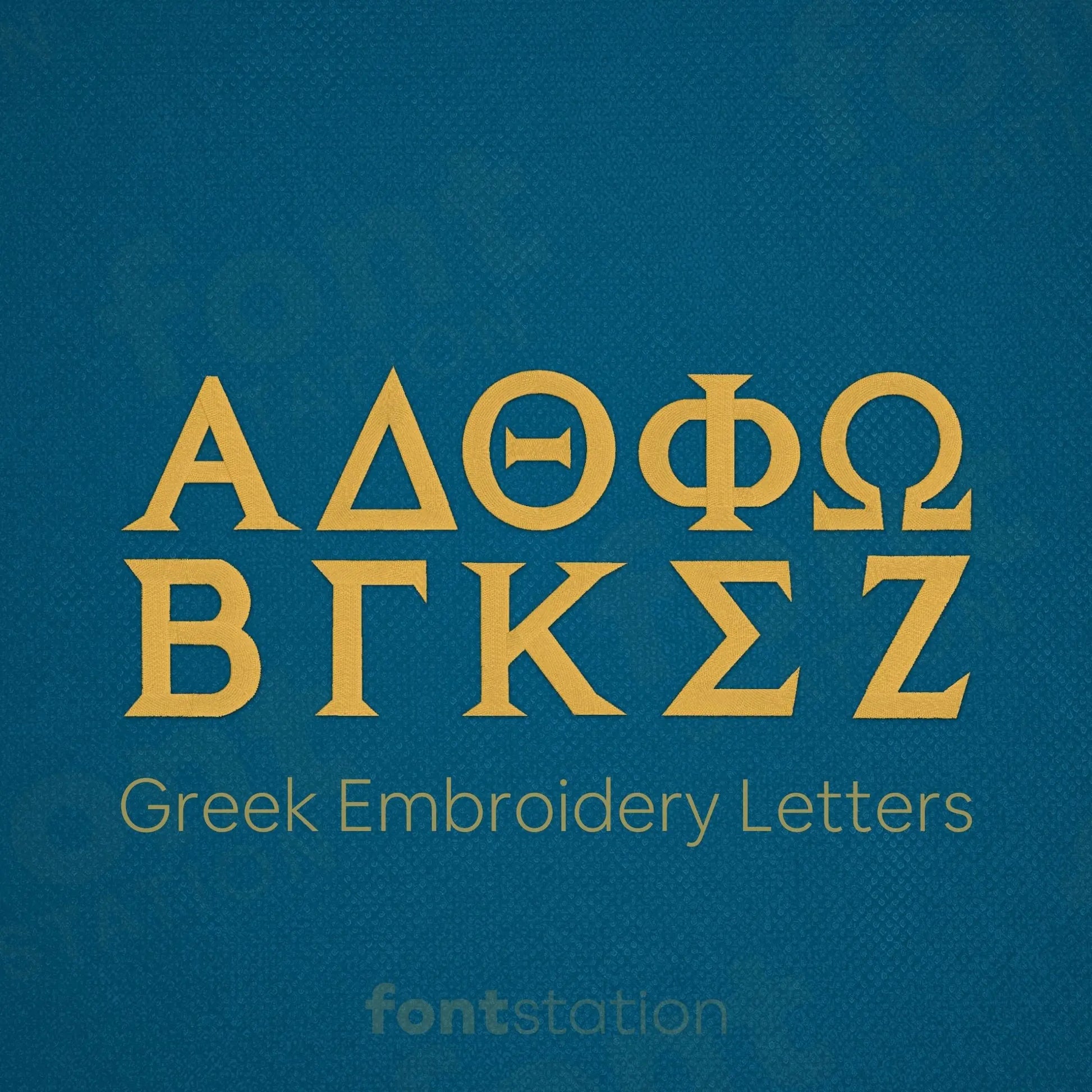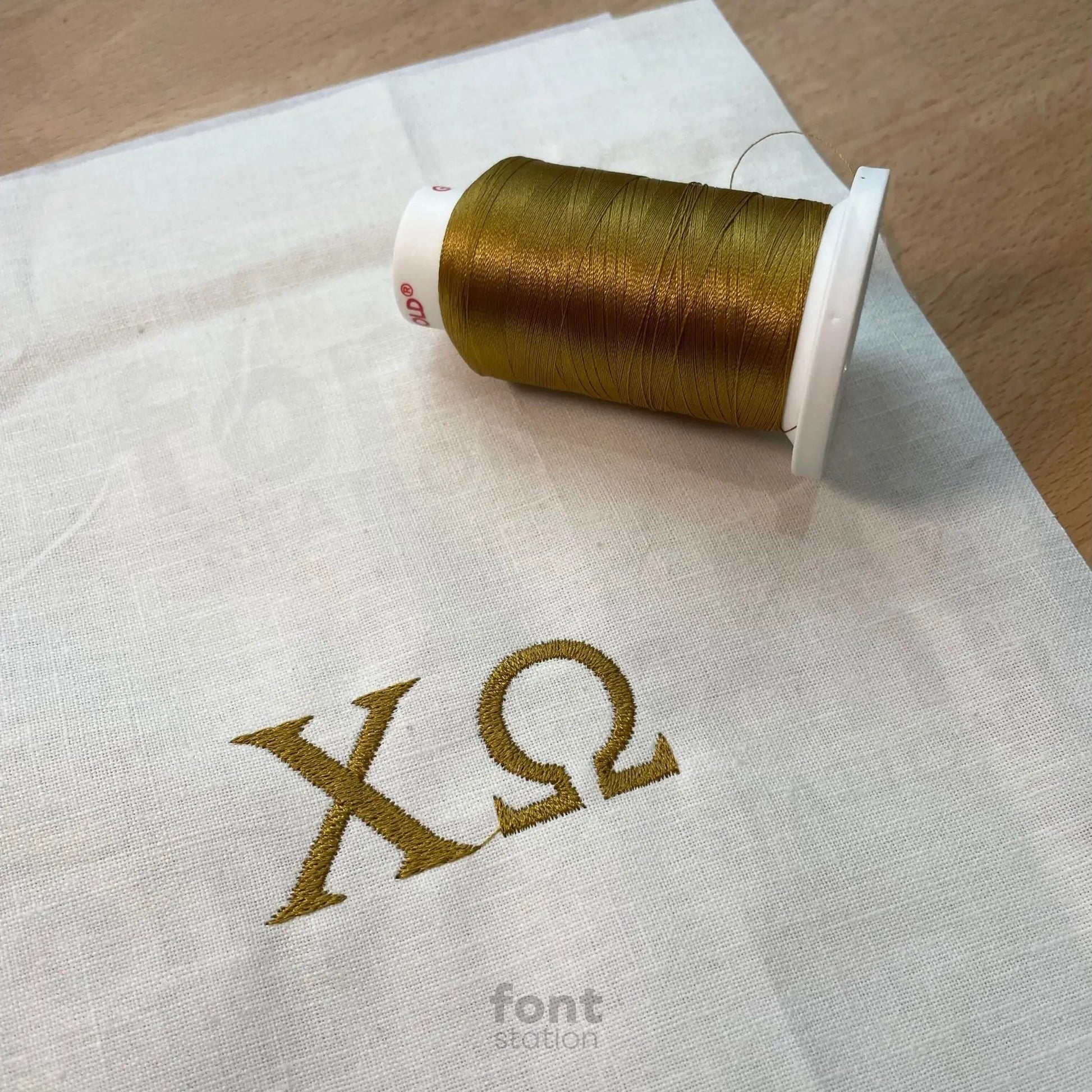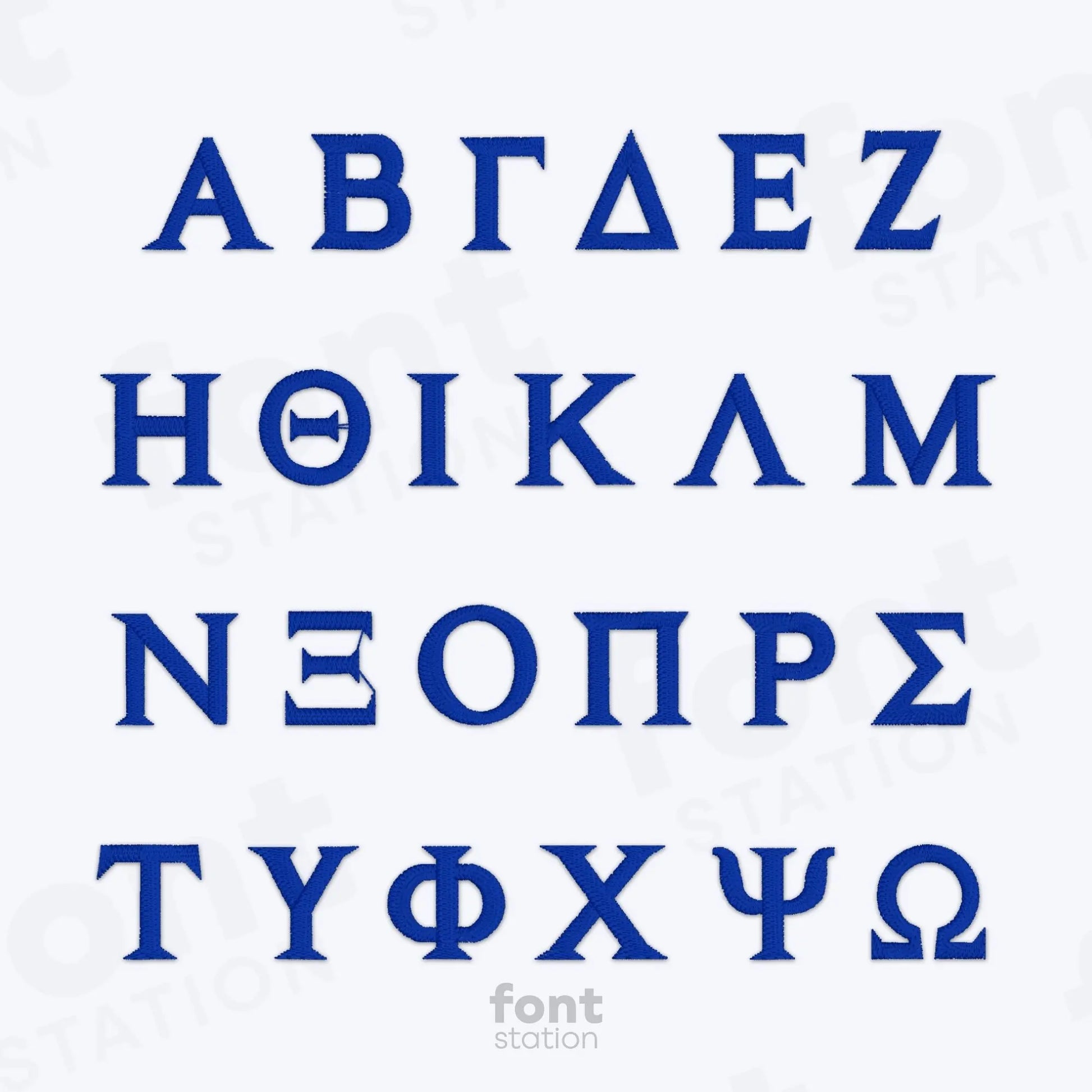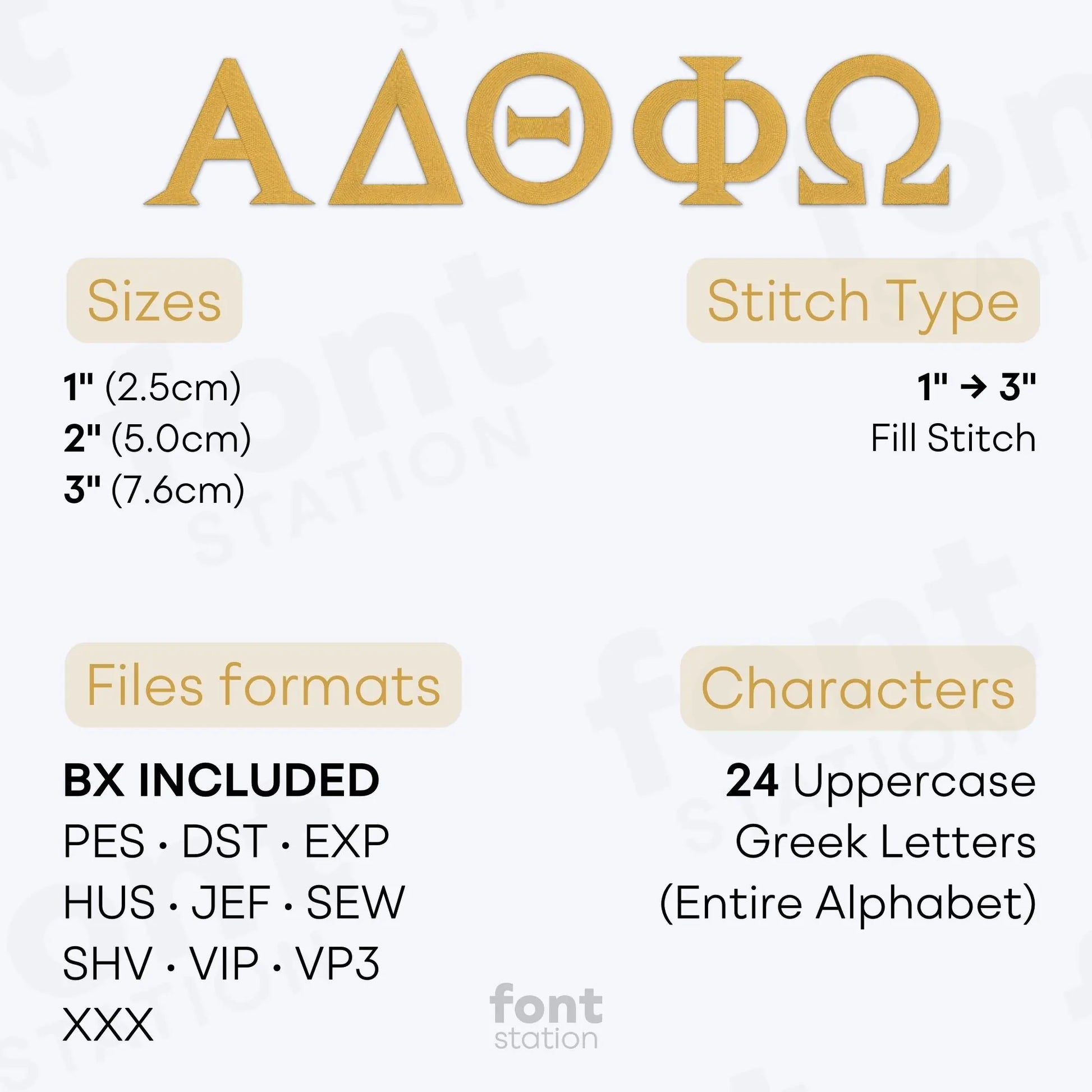
Greek Letters Embroidery Font
Introducing our Greek Letters embroidery font - a clean, classic alphabet perfect to stitch monograms, sorority letters, or fraternity designs on your next project. These machine-ready letters are ideal for custom gifts and stitch beautifully on any embroidery machine.
About the Greek Letters Embroidery Font
Characters: 24 uppercase greek letters
Our Greek Letters embroidery font is perfect for sorority, fraternity, and monogram projects.
The Greek Letters embroidery font features a clean, classic alphabet designed for stitching high-impact monograms, sorority symbols, and fraternity designs. Whether you're customizing totes, apparel, or gifts, these professional embroidery letters deliver sharp, easy-to-read results on every embroidery machine. Digitized for smooth stitching, this font includes formats like BX, PES, DST, JEF, EXP, VP3, HUS and more, making it a versatile choice for Greek-themed embroidery projects.